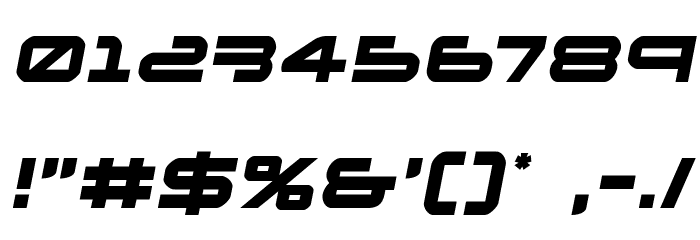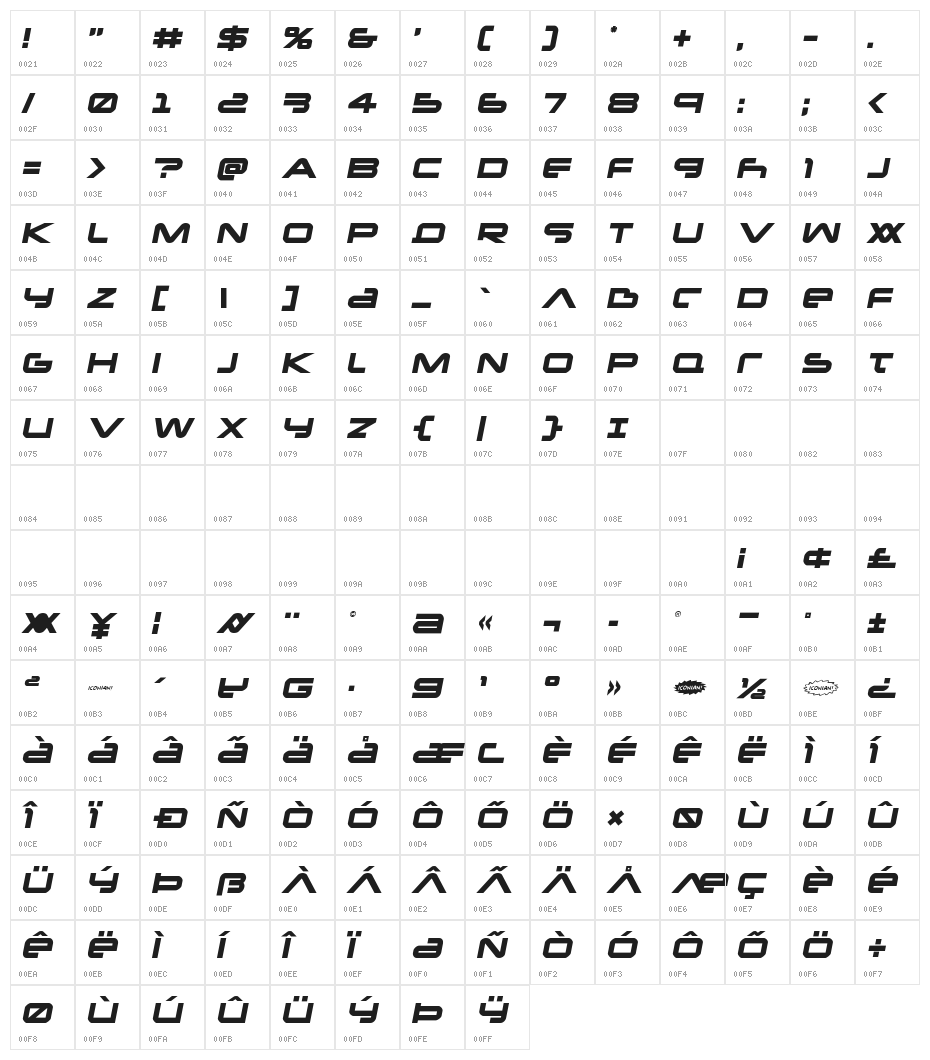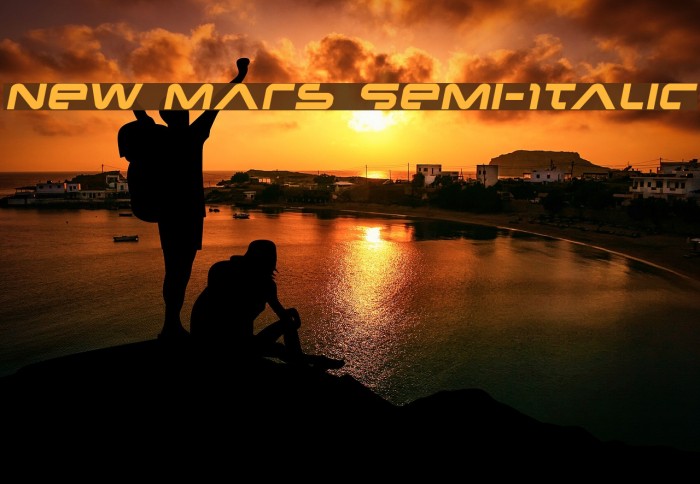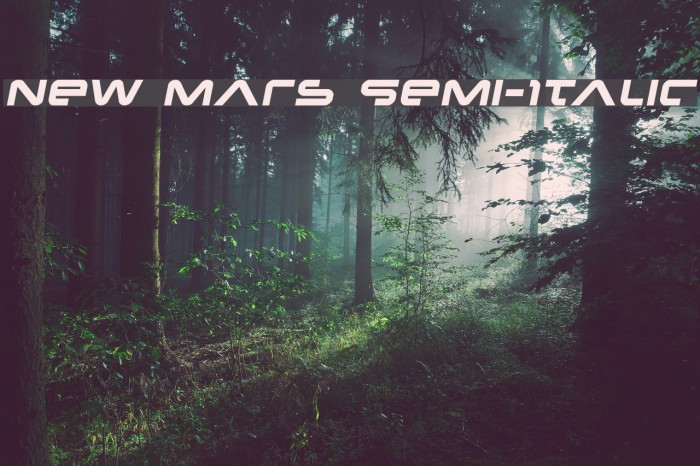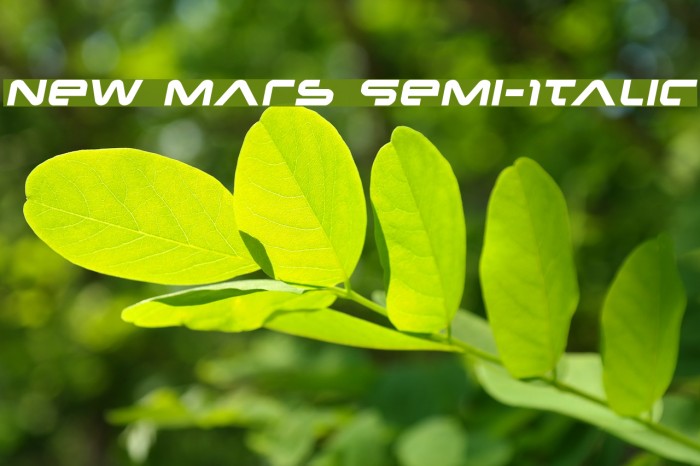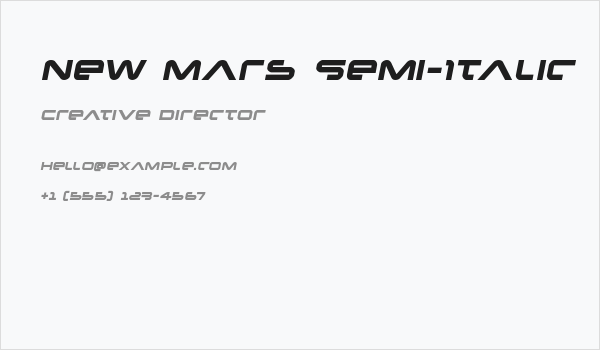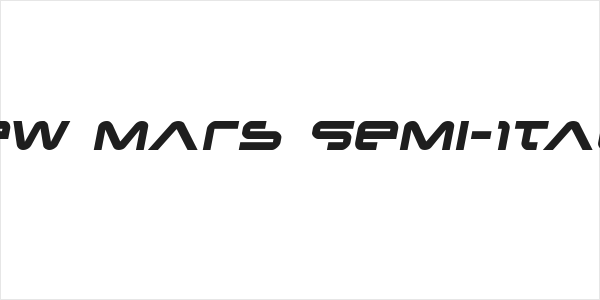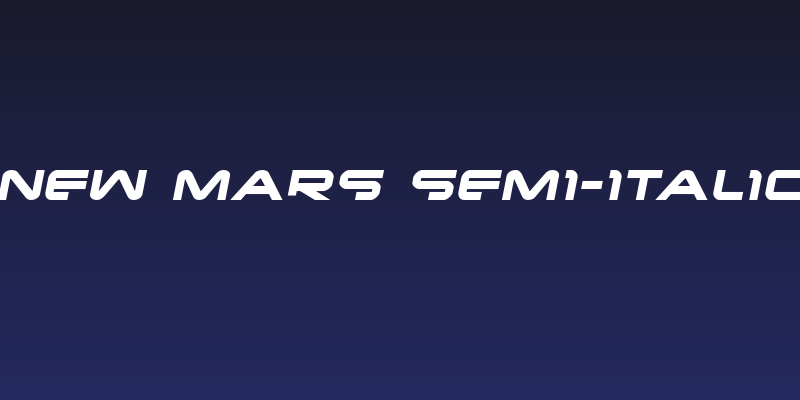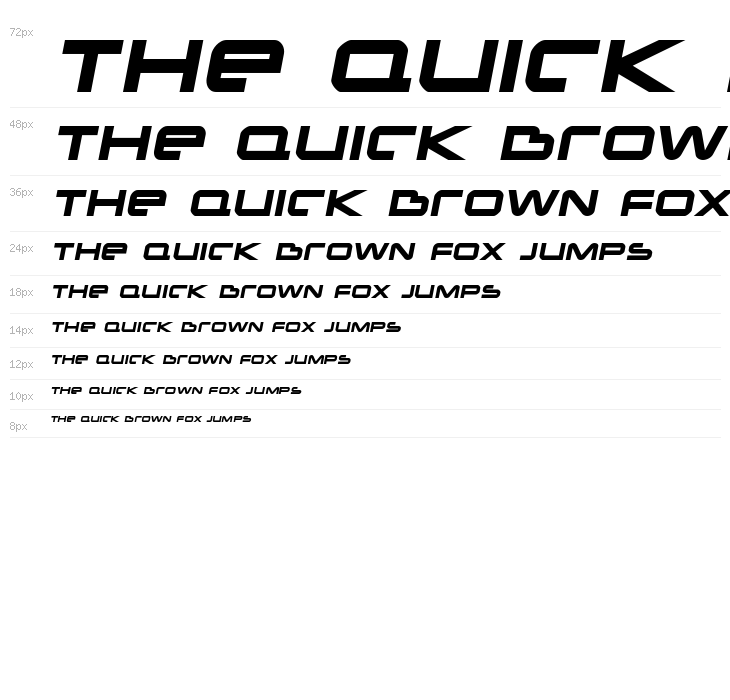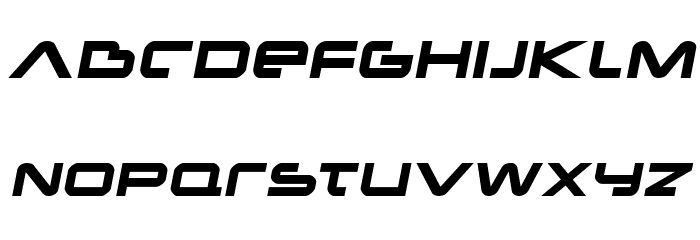
New Mars Semi-Italic Font
New Mars Semi-Italic Description
This font features a futuristic and sleek design with a semi-italic slant, giving it a dynamic and forward-moving appearance. The characters are bold and slightly condensed, with sharp angles and clean lines that convey a sense of modernity and innovation. The uppercase and lowercase letters maintain a consistent style, with unique geometric shapes that make each character distinct. The numerals and special characters follow the same design principles, ensuring uniformity across all glyphs. This font is ideal for projects that require a modern and tech-savvy aesthetic.
| Proposed Projects | Ideal for technology branding, sci-fi posters, video game titles, and modern advertising. |